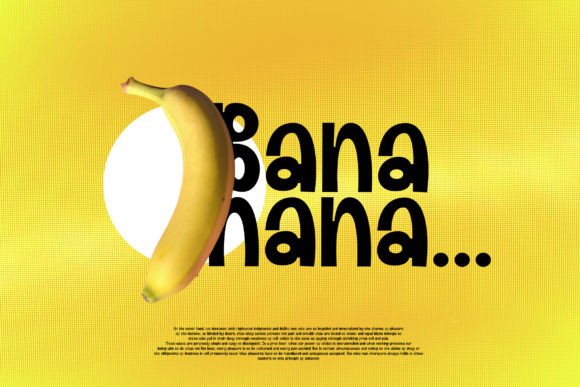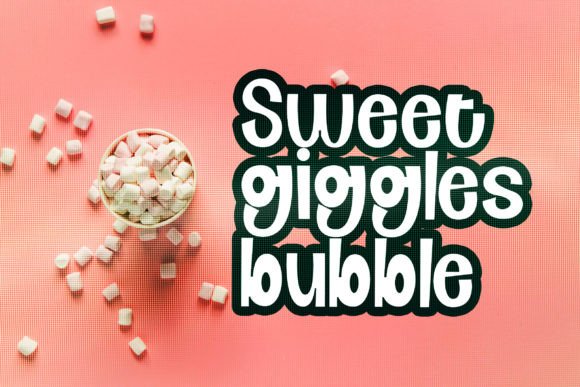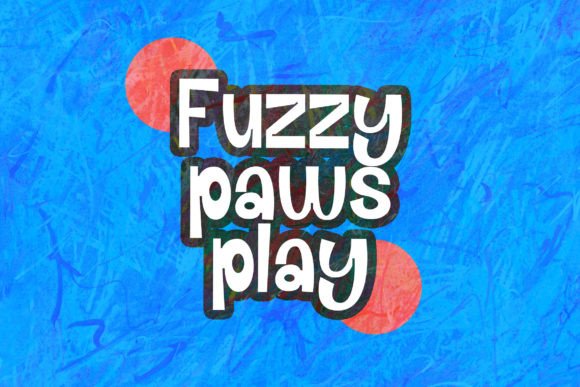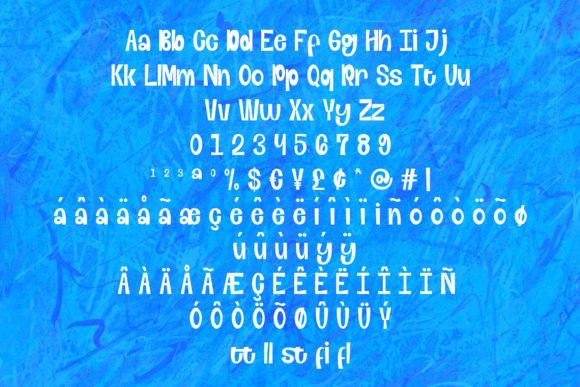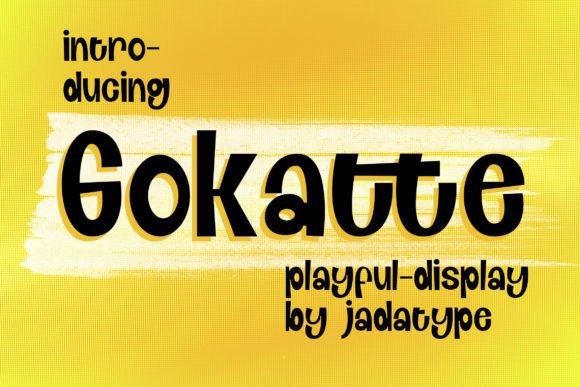
Gokatte Font: The Playful Display Font for Creative Projects
Are you a designer or crafter looking for a unique and playful font to elevate your creative projects? Look no further than Gokatte Font! This display font is designed to add a touch of fun and personality to your designs, making it perfect for t-shirts, branding, social media, and more.
What is Gokatte Font?
Gokatte Font is a modern display font that boasts a playful style, perfect for making a statement in your designs. With its clean lines and bold aesthetic, this font is sure to grab attention and leave a lasting impression. Whether you’re designing a logo, creating a social media post, or crafting a t-shirt, Gokatte Font is the perfect choice.
Key Features of Gokatte Font
So, what makes Gokatte Font so special? Here are just a few of its key features:
- Standard English letters, numbers, and punctuation: Gokatte Font contains all the standard characters you need to create professional-looking designs.
- Multilingual support: With several accents included, Gokatte Font supports multilingualism, making it perfect for designers who work with clients from around the world.
Use Cases for Gokatte Font
So, how can you use Gokatte Font in your creative projects? Here are just a few ideas to get you started:
- T-shirts and apparel: Add a playful touch to your t-shirt designs with Gokatte Font.
- Branding and logos: Use Gokatte Font to create a bold and eye-catching logo for your brand.
- Social media graphics: Add some personality to your social media posts with Gokatte Font.
- Signage and displays: Use Gokatte Font to create eye-catching signage and displays for events, promotions, and more.
Why Choose Gokatte Font?
With so many fonts to choose from, why should you choose Gokatte Font? Here are just a few reasons:
- Unique and playful style: Gokatte Font offers a fresh and modern take on traditional display fonts.
- High-quality design: With its clean lines and bold aesthetic, Gokatte Font is perfect for creating professional-looking designs.
- Characters included: Standard English letters, numbers, punctuation, and several accents
- Language support: Multilingual support